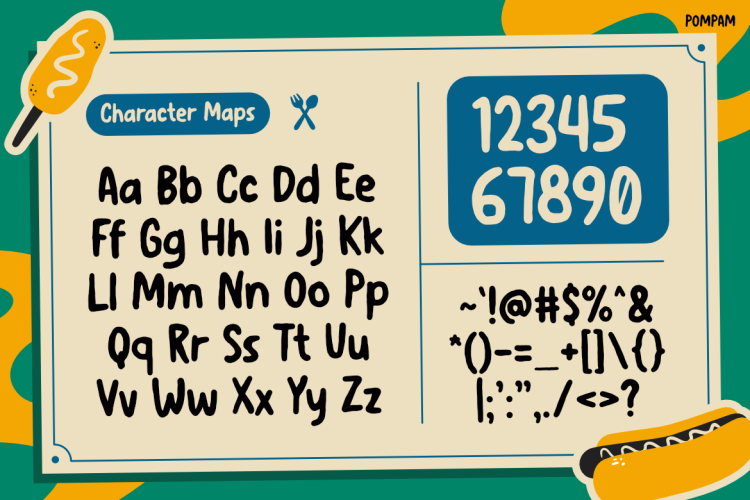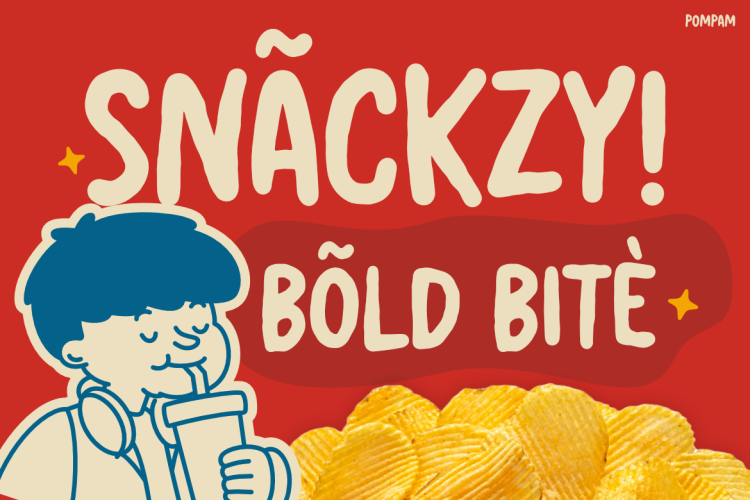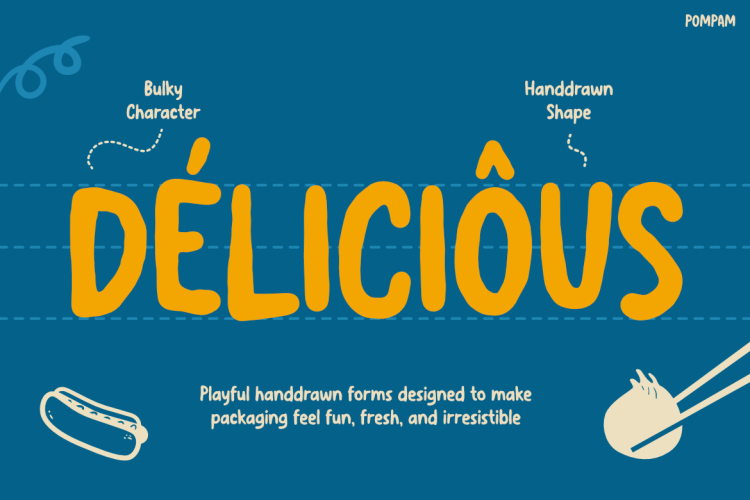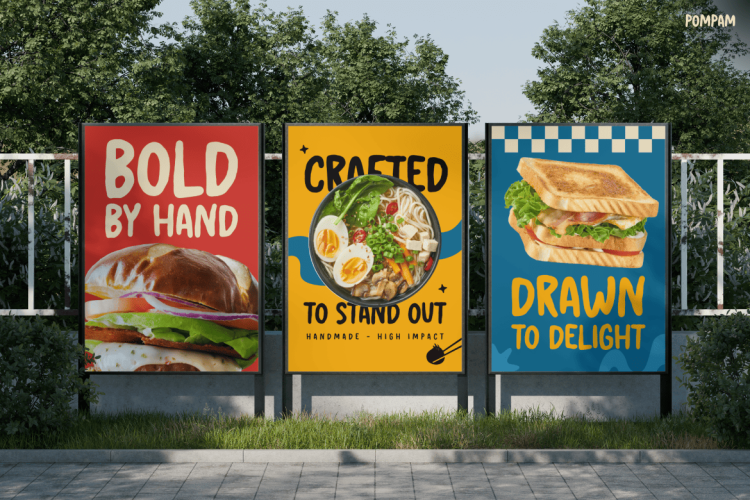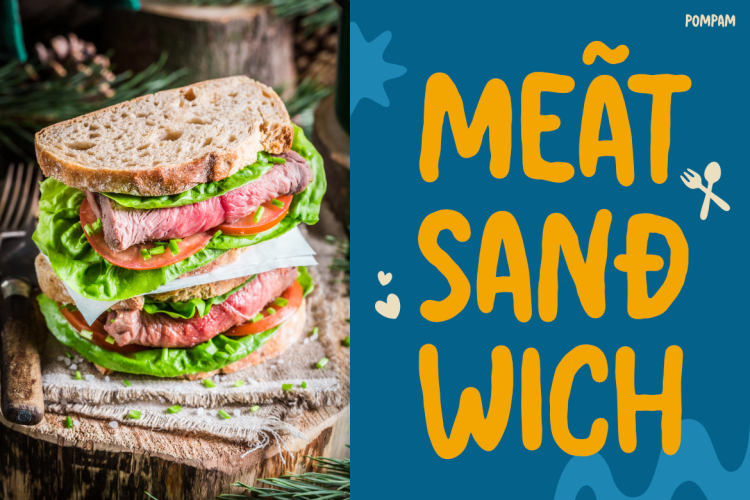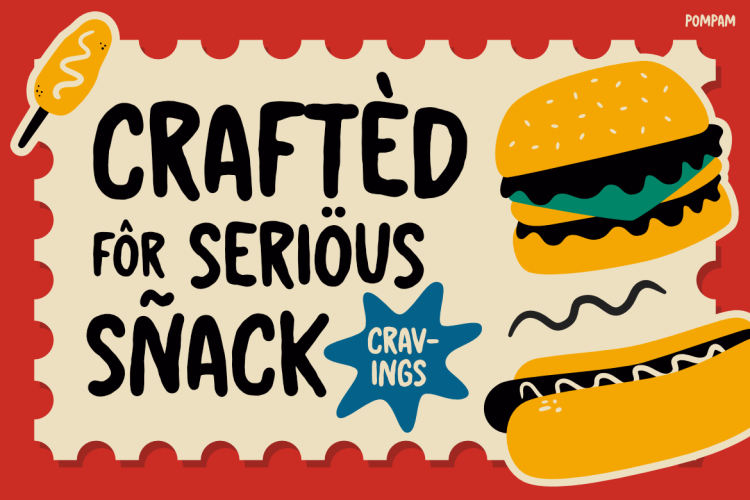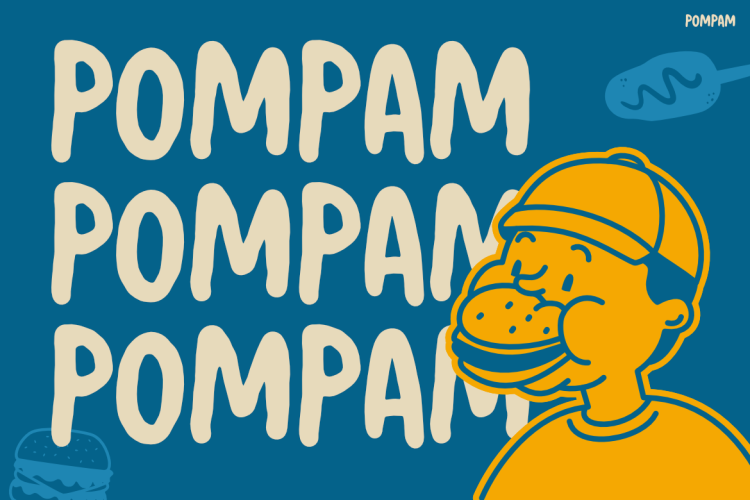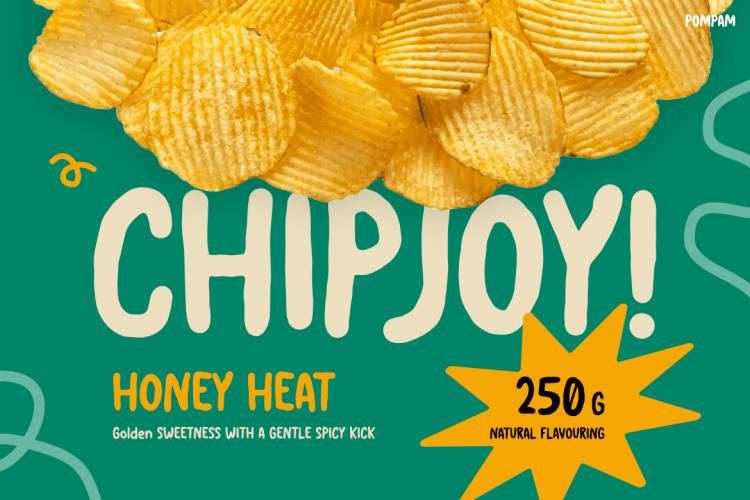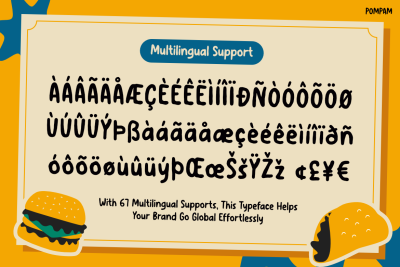
Modern Font POMPAM – Flavor First. Impact Always.
Modern Font POMPAM immediately commands attention with bold strokes and playful curves. From the first glance, it radiates energy; moreover, its chunky letterforms create a strong and confident visual rhythm. Instead of fading into the background, this typeface steps forward and takes control of the layout. Because of its hand-drawn personality, every character feels warm and expressive. At the same time, its solid construction preserves clarity and balance. As a result, headlines look powerful while remaining easy to read.
Beyond its bold appearance, Modern Font POMPAM delivers functional strength. For example, the heavy weight builds instant hierarchy, so key messages stand out without extra design elements. In addition, the rounded terminals soften the impact, which keeps the overall tone friendly and inviting. Therefore, brands can communicate with confidence while still feeling approachable. Furthermore, the consistent spacing ensures clean composition across posters, packaging, and digital graphics. Supporting 67 languages, it also allows global communication without sacrificing personality. Consequently, designers can scale campaigns internationally while maintaining a unified visual voice.
Crafted for High-Impact Design
Modern Font POMPAM thrives in bold branding environments. Whether used for snack packaging, cafรฉ menus, beverage labels, or street food visuals, it reinforces flavor-driven identity. Likewise, it performs exceptionally well in childrenโs products, merchandise, social media graphics, and promotional posters. Because of its vibrant structure, it enhances shelf presence and digital visibility simultaneously.
Built for Ambitious Creators
Graphic designers, branding agencies, food startups, marketing teams, and content creators will benefit from its bold adaptability. In particular, businesses seeking strong first impressions will find this font highly effective. If visibility, memorability, and character matter, then this typeface delivers measurable visual impact.
Ultimately, when bold energy meets smart structure, results follow. Choose Modern Font POMPAM today, and transform ordinary words into powerful branding statements.